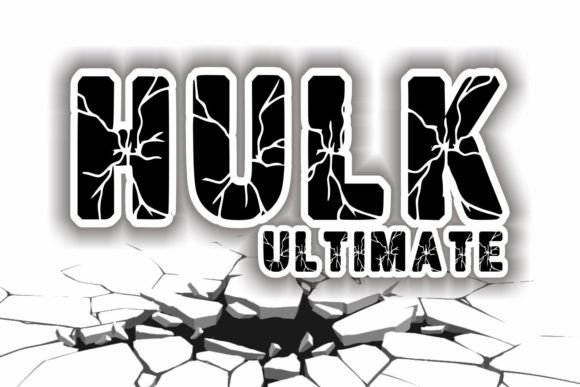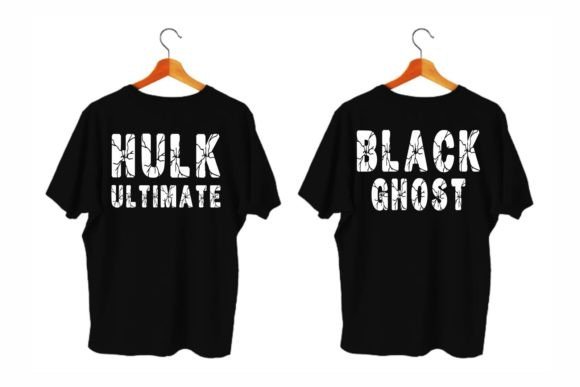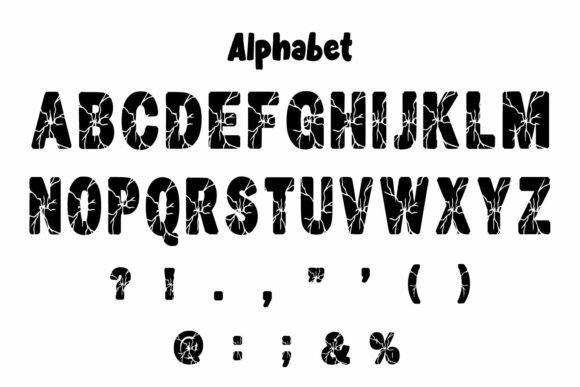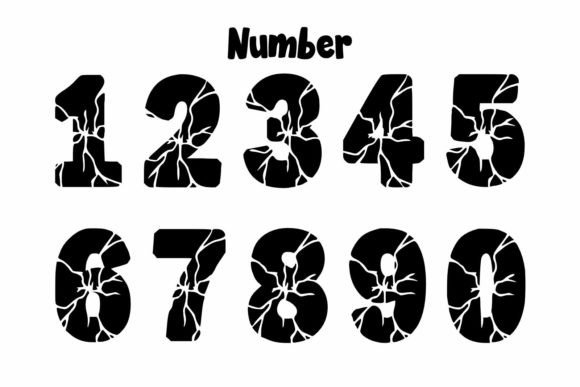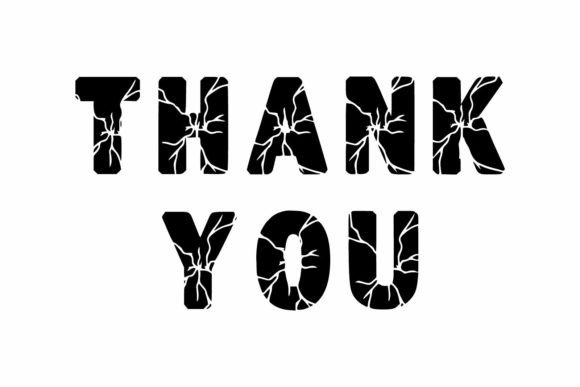
The Perfect Canvas for Your Creative Vision
Have you ever stared at a blank page, waiting for the perfect idea to strike? It’s that moment of pure creative clarity when everything falls into place, and your imagination runs wild. You envision a stunning design, a captivating headline, or an eye-catching logo that will leave a lasting impression. This is the moment when the right font can make all the difference.
Introducing the Cracked Font, a masterfully designed display font that’s poised to take your creative projects to new heights. Whether you’re a seasoned designer or just starting out, this font is the perfect addition to your toolkit. With its unique aesthetic and versatility, the Cracked Font is an invaluable asset for any designer looking to elevate their work.
Key Features of Cracked Font
- Font Family: Cracked Font is a distressed, vintage-inspired font family that includes a variety of styles and weights.
- Character Count: The font family includes over 250 characters, including uppercase and lowercase letters, numbers, and punctuation marks.
- Unique Characteristics: Features a distressed, crackled texture that gives it a unique, vintage look, making it ideal for designs that require a worn, aged aesthetic.
Designer Review: Cracked Font
First off, I think Cracked Font is a pretty cool idea. ✨ The distressed texture and rugged feel give it a unique, vintage vibe that could work well for a variety of projects. I can see it being used for anything from a retro-style logo to a distressed texture for a website background.
One of the things I like about Cracked Font is its versatility. ✨ It comes in a range of weights and styles, from light and delicate to bold and chunky, so you can use it to create a consistent look across your design.
- ⚠️ Cracked Font can be a bit overused. I’ve seen it used in a lot of different projects, and it’s starting to feel a bit like a cliché.
- ⚠️ The font can be difficult to read in certain situations. The distressed texture can make it hard to distinguish between certain letters and characters, which can be a problem if you’re using it for body text.
Overall, I think Cracked Font is a solid choice for designers who are looking for a unique, vintage vibe. However, I would caution against overusing it, and I would recommend using it sparingly in projects where readability is a top priority.
Common Use Cases for Cracked Font
Cracked Font is commonly used for:
1. Creating eye-catching headlines and titles.
2. Adding a distressed or vintage look to